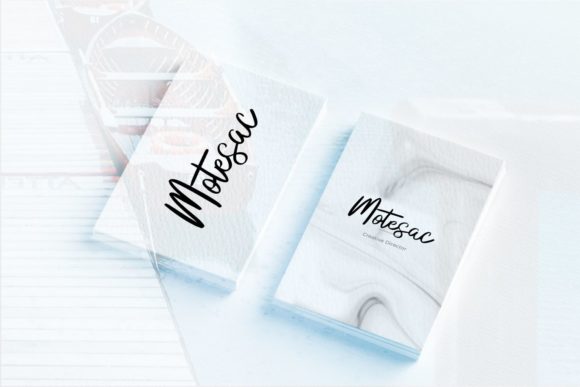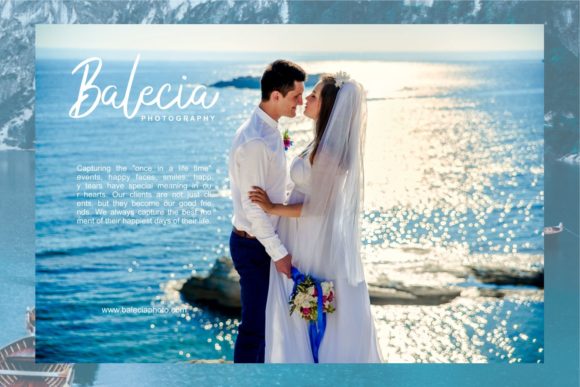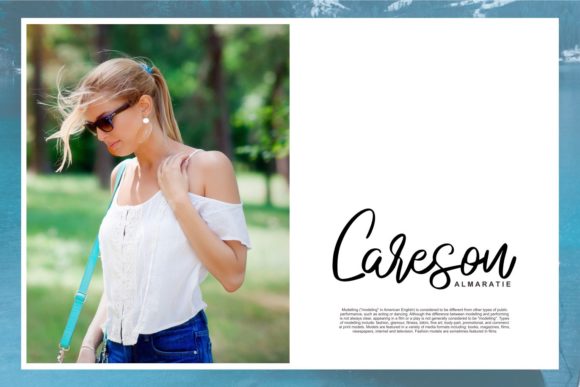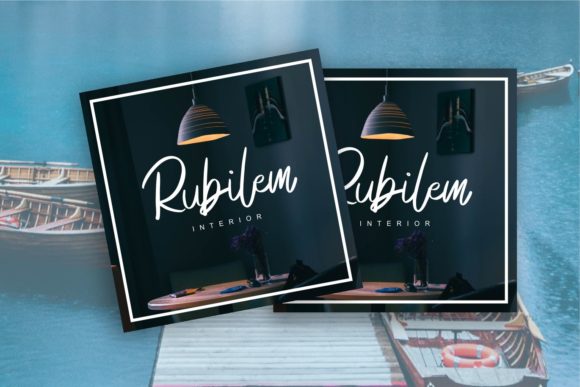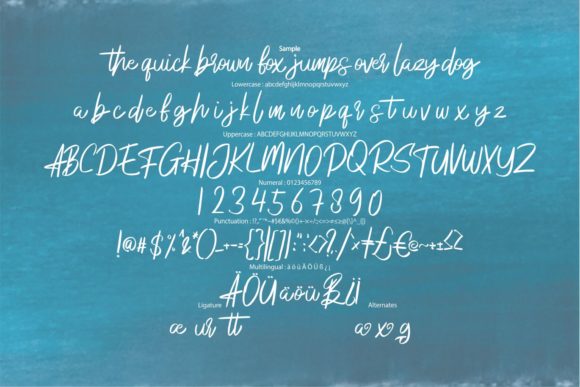
Introducing Anadego Font: The Ultimate Handwritten Script for Creative Projects
Are you a designer, crafter, or DIY enthusiast looking for a font that can add a touch of personality to your creative projects? Look no further than Anadego Font, a cute and casual handwritten script that is sure to delight. With its incredibly friendly feel, gorgeous swashes, and ligatures, Anadego is the perfect choice for anyone looking to turn their ideas into a true piece of art.
The Features of Anadego Font
Anadego Font is a highly versatile script that boasts a range of features that make it perfect for a variety of creative projects. Some of its key features include:
- Cute and Casual Handwritten Style: Anadego Font has a playful, handwritten style that is perfect for creating a friendly and approachable vibe.
- Gorgeous Swashes: The font features beautiful swashes that can be used to add a touch of elegance and sophistication to your designs.
- Ligatures: Anadego Font also includes ligatures, which allow you to create beautiful connections between letters and add a touch of whimsy to your designs.
- Versatile: Whether you’re looking for fonts for Instagram, calligraphy scripts for DIY projects, or a font for your next design project, Anadego is the perfect choice.
Uses for Anadego Font
Anadego Font is a highly versatile script that can be used for a wide range of creative projects. Here are just a few ideas to get you started:
- Instagram Fonts: Use Anadego Font to create eye-catching Instagram posts and stories that are sure to stand out.
- DIY Projects: Add a touch of personality to your DIY projects, such as handmade cards, gift tags, and scrapbooking pages.
- Calligraphy Scripts: Use Anadego Font as a calligraphy script for projects such as wedding invitations, event signage, and more.
- Design Projects: Use Anadego Font in your next design project, such as a logo, brochure, or website.
Why Choose Anadego Font?
So why choose Anadego Font for your next creative project? Here are just a few reasons:
- Unique and Eye-Catching: Anadego Font has a unique and eye-catching style that is sure to grab attention.
- Easy to Read: Despite its playful style, Anadego Font is easy to read, making it perfect for use in a variety of contexts.
- Highly Versatile: Anadego Font can be used for a wide range of creative projects, from Instagram posts to DIY projects and more.
- Perfect for Creative Types: Anadego Font is perfect for designers, crafters, and DIY enthusiasts who are looking for a font that can help them add a touch of personality to their projects.
Tips for Using Anadego Font
Here are a few tips for using Anadego Font in your next creative project:
- Experiment with Swashes and Ligatures: Don’t be afraid to experiment with the swashes and ligatures in Anadego Font to add a touch of personality to your designs.
- Pair with Other Fonts: Anadego Font pairs well with a variety of other fonts, so don’t be afraid to experiment with different combinations.
- Use for Headings and Titles: Anadego Font is perfect for use in headings and titles, where its playful style can really shine.
- Have Fun: Most importantly, have fun with Anadego Font! Its playful style is perfect for adding a touch of whimsy to your designs.
In conclusion, Anadego Font is a highly versatile and adorable handwritten script that is perfect for designers, crafters, and DIY enthusiasts. With its gorgeous swashes, ligatures, and playful style, Anadego Font is sure to add a touch of personality to any creative project. Whether you’re looking for fonts for Instagram, calligraphy scripts for DIY projects, or a font for your next design project, Anadego Font is the perfect choice.